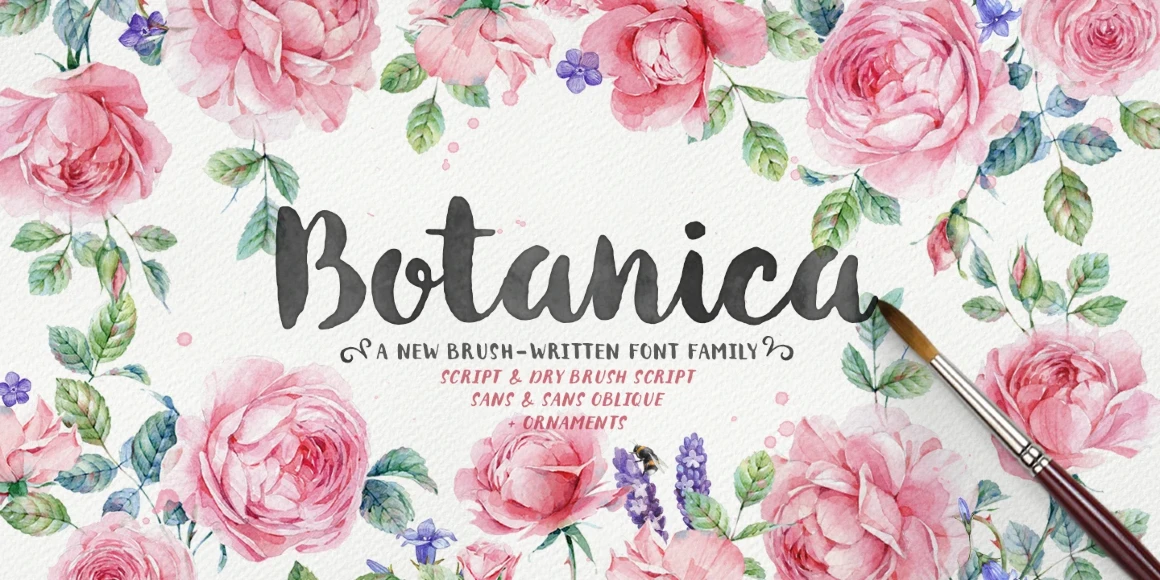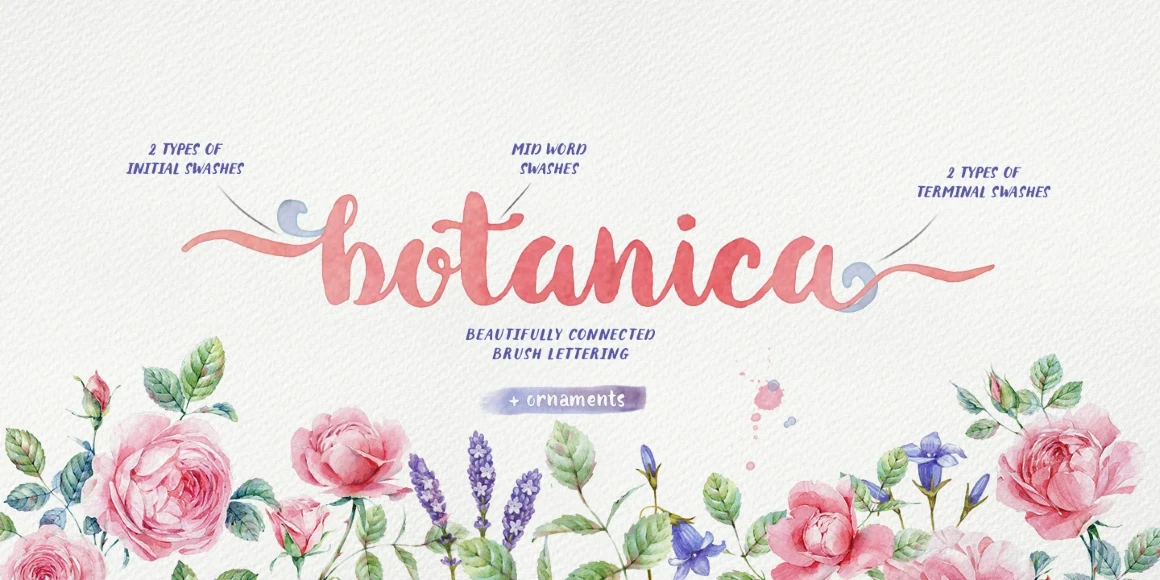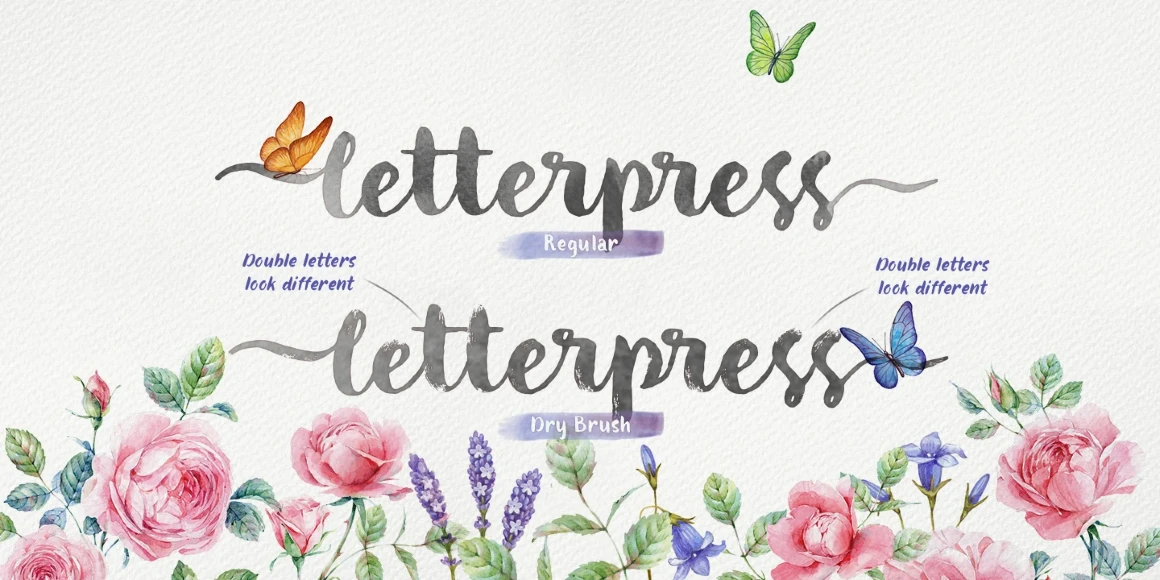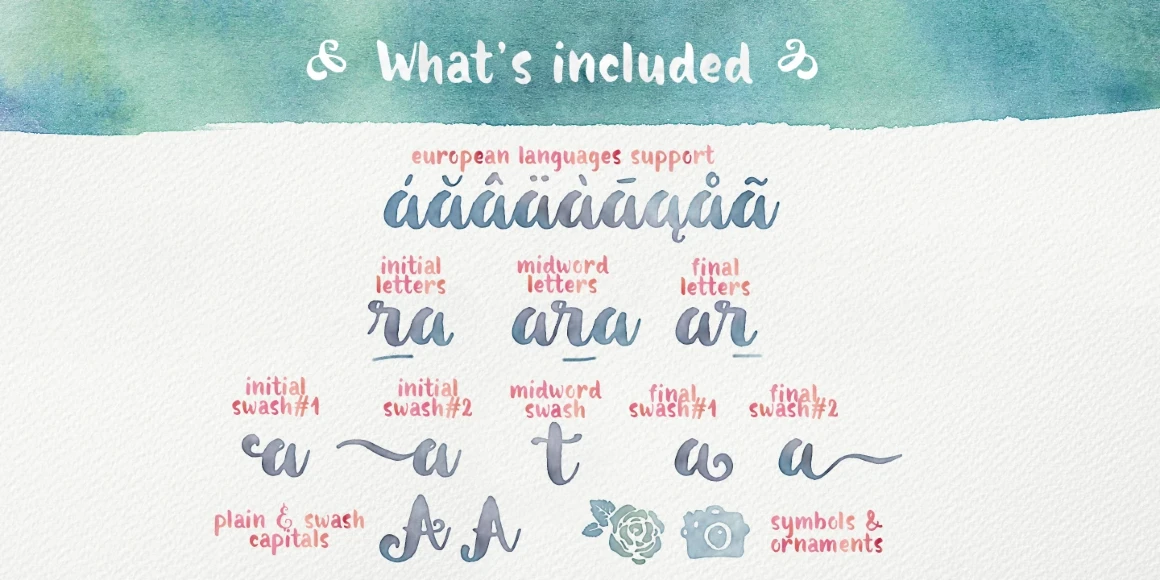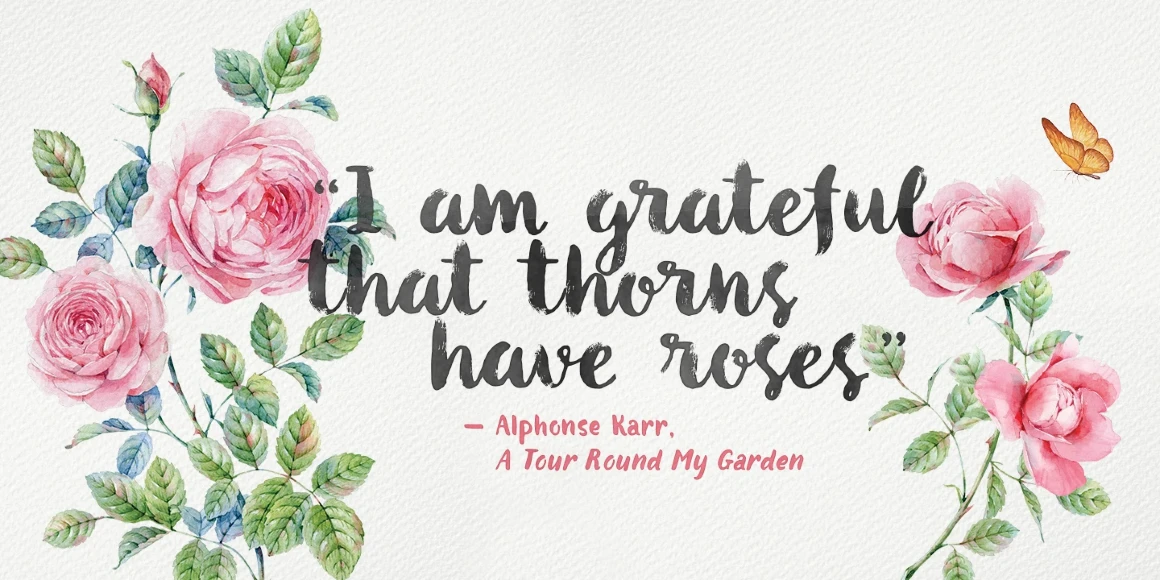
Botanica Script
From My Creative Land
Botanica is a 100% brush-written font family with an inky texture inspired by modern brush lettering and design trends. The fonts were designed to look good together or separately, and possibilities are only limited by your imagination. With two types of initial and terminal swashes, the Script font is a good companion in wedding invitation design.
Designed by Elena Genova